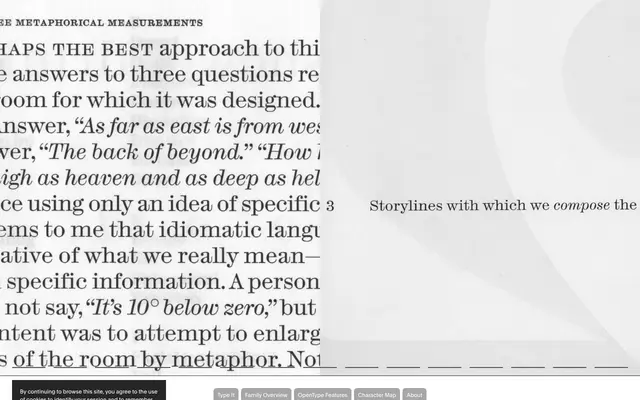
SuperScotch
François Rappo's Scotch-face from the alignment of mountaineering literature and type design, with text and display cuts drawn without interpolation.
A Scotch-face serif by François Rappo, drawn from his interest in both mountaineering and type design. Starting from The Playground of Europe, an early classic of mountaineering literature that brought together the Alps, British explorers and a Scotch-face, Rappo set out to remake the genre with new curves and structural tensions. Sat halfway between modern and transitional, the family carries a Victorian sensibility into a versatile contemporary system, with each weight drawn individually for true optical balance. Text and Display cuts run from Thin through Extra with italics.
Optimo describes SuperScotch as a Scotch-face sat halfway between modern and transitional, drawn without interpolation across each weight, inspired by mountaineering literature and Victorian-era Alpine typography.